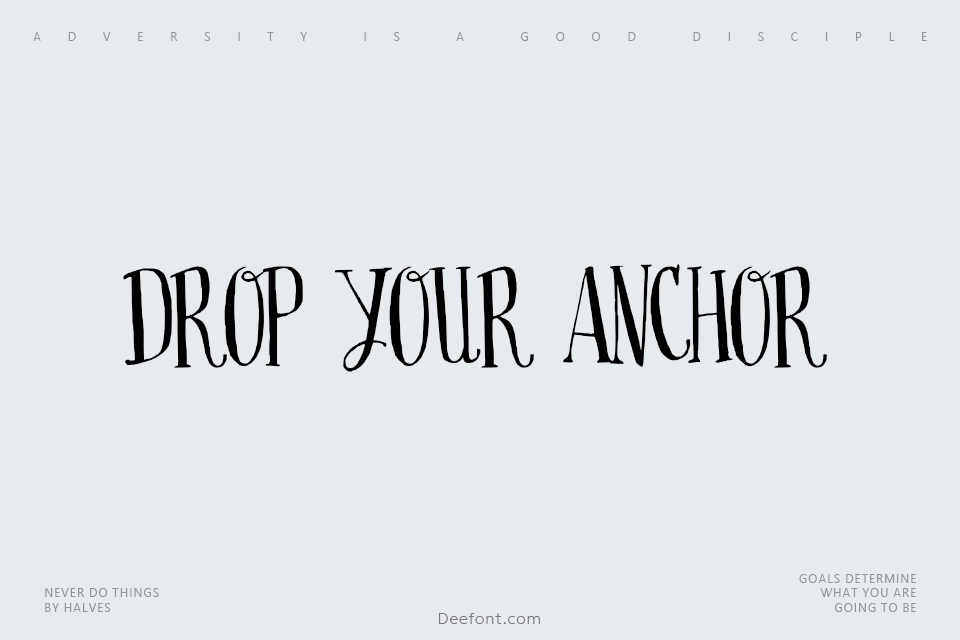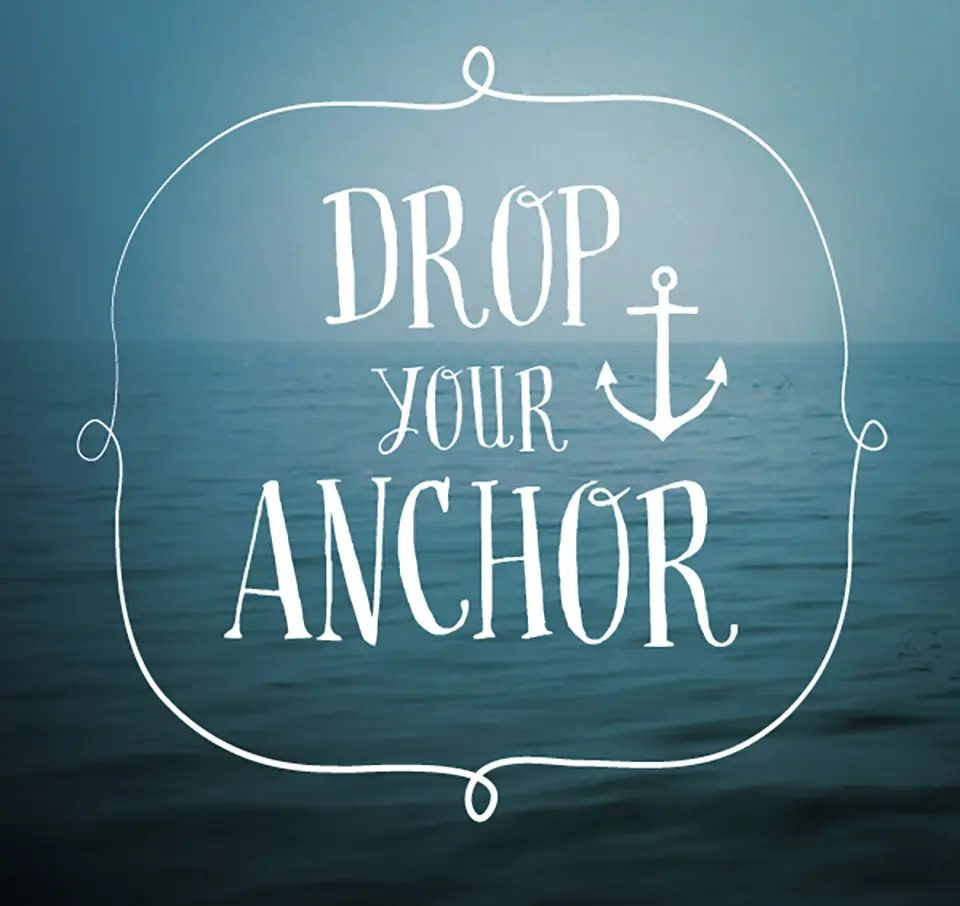
Drop your anchor Font
Drop your anchor is a playful and whimsical nautical-themed decorative font designed by Jeremy Dixon. This typeface features hand-drawn characters with irregular strokes and varying thickness, creating a dynamic and artistic appearance. Perfect for maritime-related designs, children’s books, adventure branding, and themed invitations, the font includes a distinctive anchor symbol that reinforces its oceanic theme. With its unique personality and creative flair, Drop your anchor brings character and charm to any project requiring a decorative, fun aesthetic. The font maintains consistency across all 56 characters and special symbols, making it versatile for headlines, logos, and creative typography work.